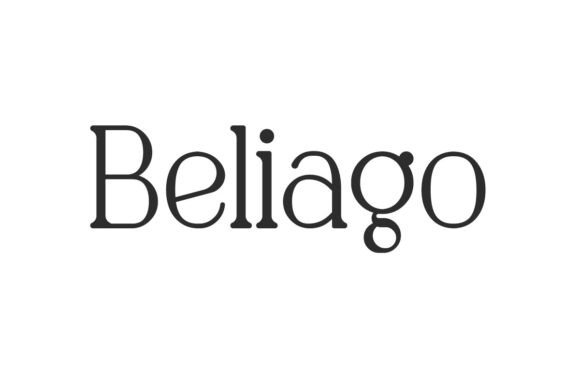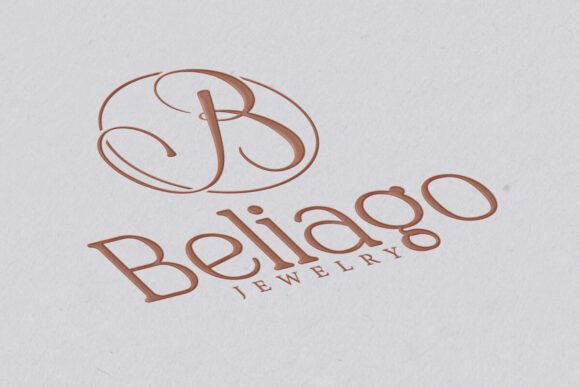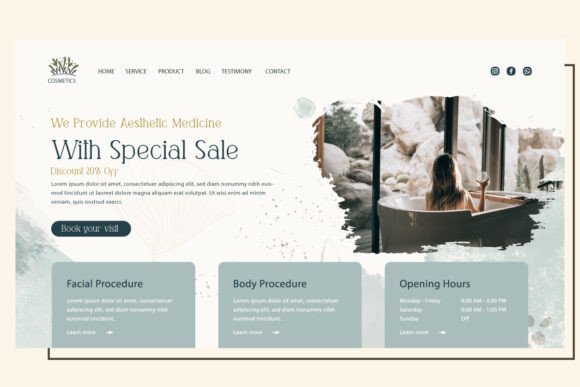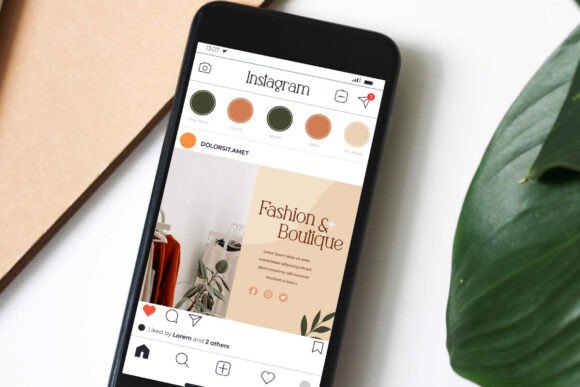
Beliago Font
Beliago is a retro inspired classic serif font with modern look and artistic touch. Attractiveness from a visual perspective will increase your business, such as architect, beauty clinic, boutique, café, construction, cosmetic, event organizer, fashion, florist, furniture, handicraft, interior design, jewelry, photography, printing, publishing, real estate, restaurant, skincare, spa salon, wedding, writer, etc.